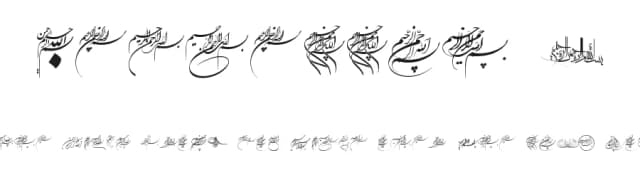
About Mohammad RasoolAllah Font
Mohammad RasoolAllah is a dingbats font designed by Mojtaba Kia, offering 96 characters of decorative symbols and ornamental glyphs. With support for 104+ Latin-based languages, this Regular-weight typeface brings typographic flourishes to any project requiring symbolic or decorative elements rather than traditional text.
Dingbats like this one work exceptionally well for adding ornamental borders to print materials like flyers and posters, creating custom bullet points and dividers in documents and presentations, and designing decorative elements for craft projects cut on machines such as Cricut or Silhouette. Greeting card makers and invitation designers frequently turn to fonts in this category to incorporate flourishes that standard typefaces simply cannot provide. The 96-glyph collection gives designers enough flexibility to layer symbols across backgrounds, use individual glyphs as focal points in layouts, or build repeating patterns for borders and decorative accents.
Mohammad RasoolAllah Font is a versatile dingbats font that works for both headings and body text. Pair it with a contrasting sans-serif or serif font to add visual interest and a clear distinction between titles and body copy.
Mohammad RasoolAllah Font
by Mojtaba Kia